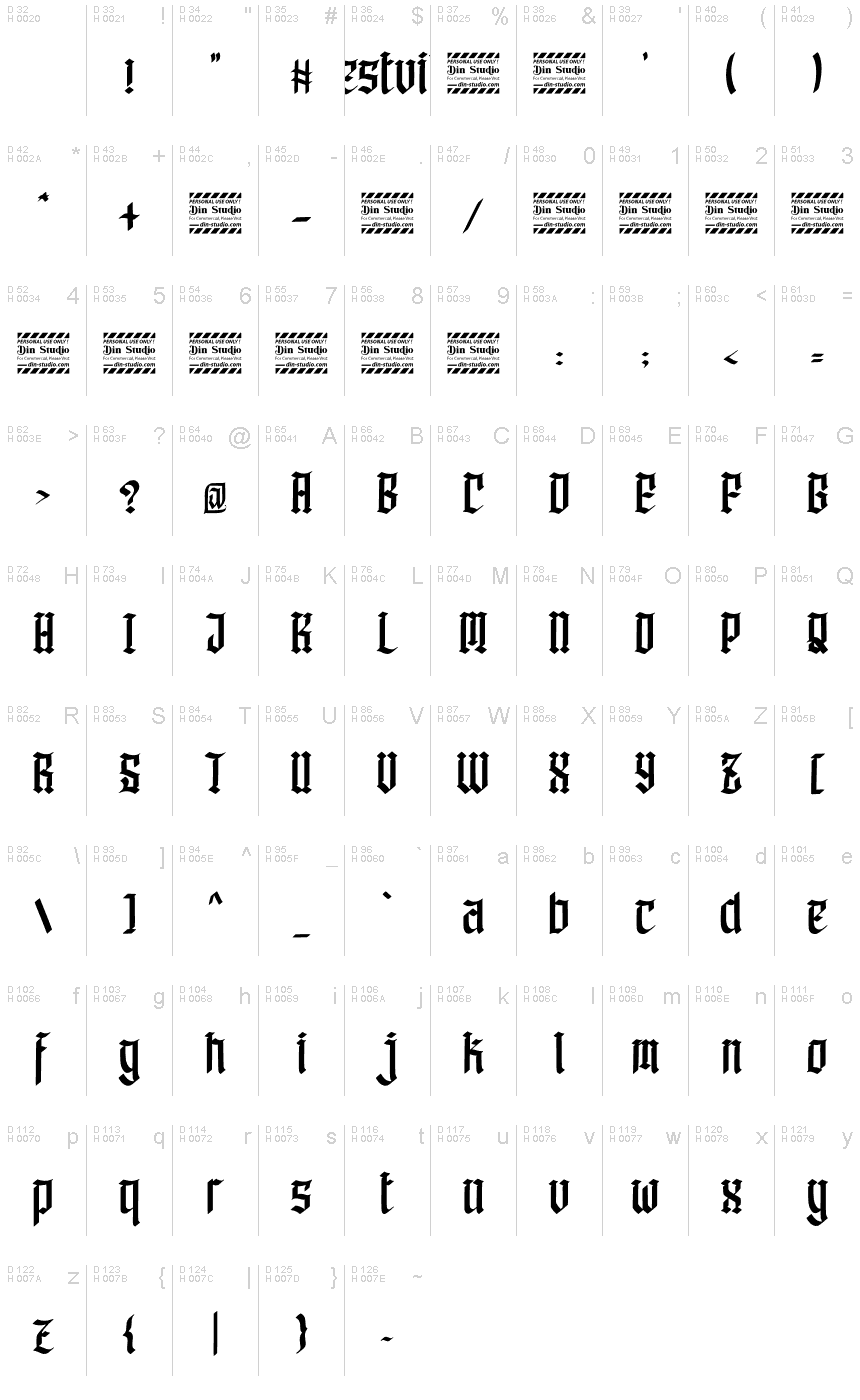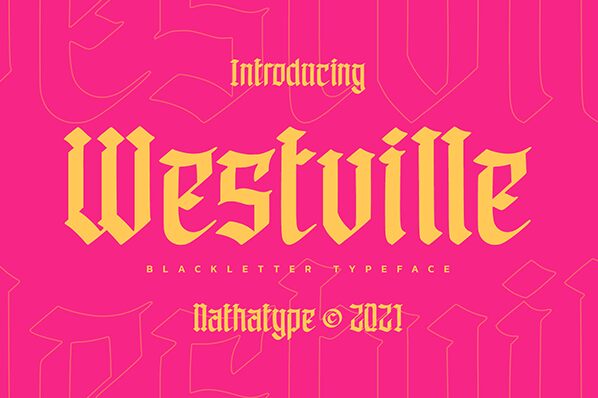
Westville, a modern semi-light gothic font designed by Din Studio, is the perfect choice for adding a touch of sophistication to your projects.
With its condensed width and artistic style, this font is guaranteed to make your logo, book cover, poster, t-shirt design, branding materials, and advertisements stand out from the crowd. Whether you're working on a contemporary fashion campaign or an edgy music album cover, Westville is here to elevate your creations with its unique and stylish appeal.
Embrace the modernity and versatility of Westville for all your creative endeavors.